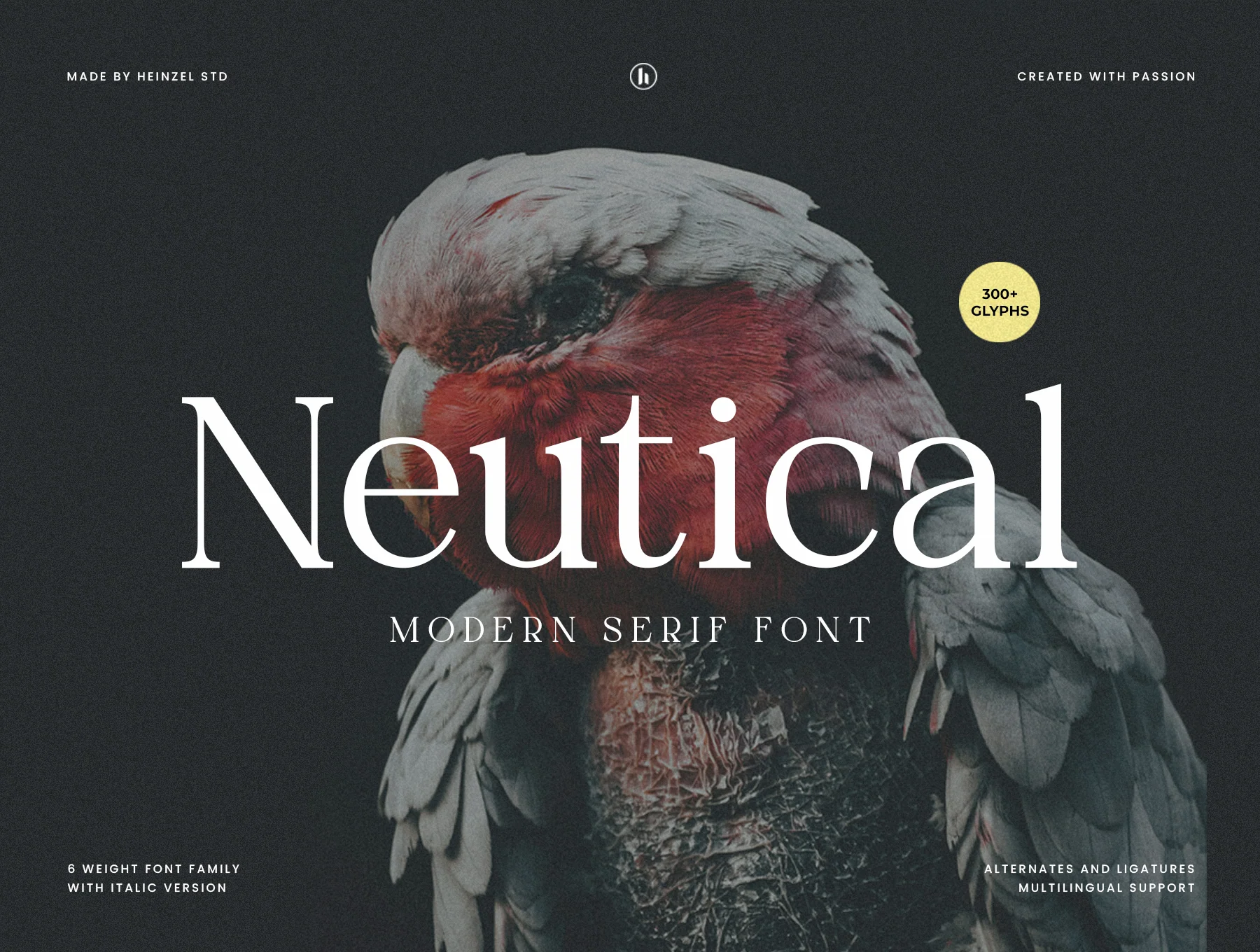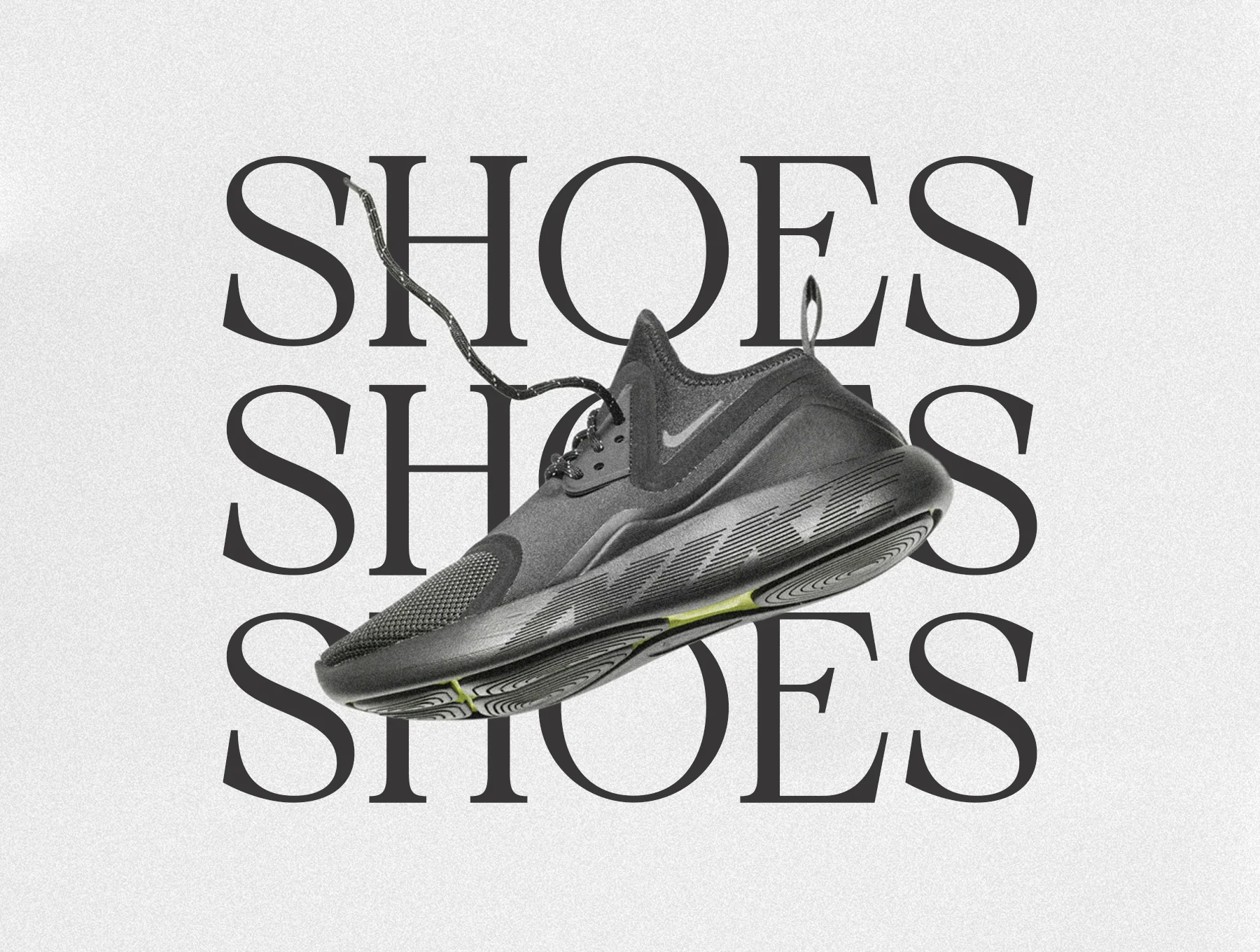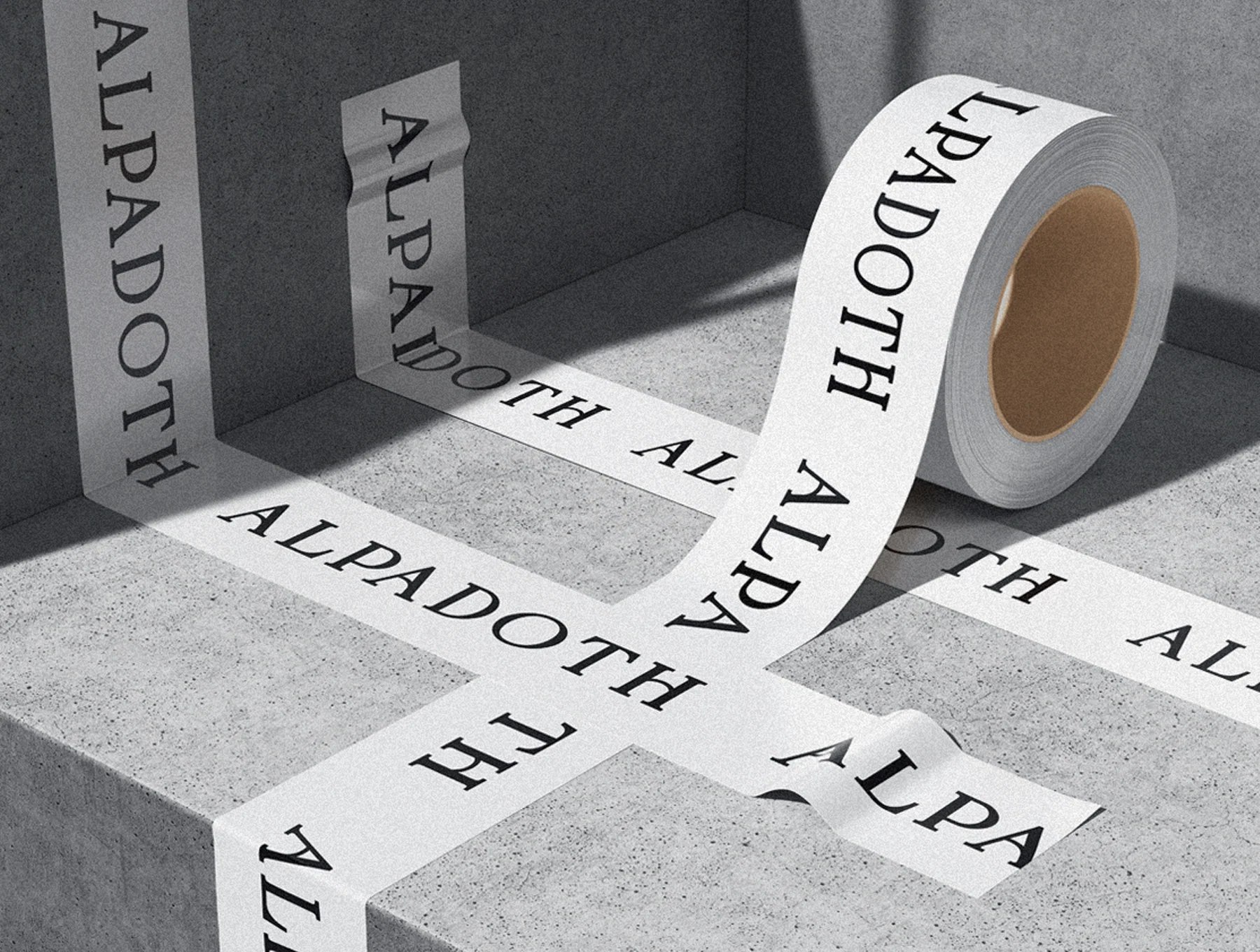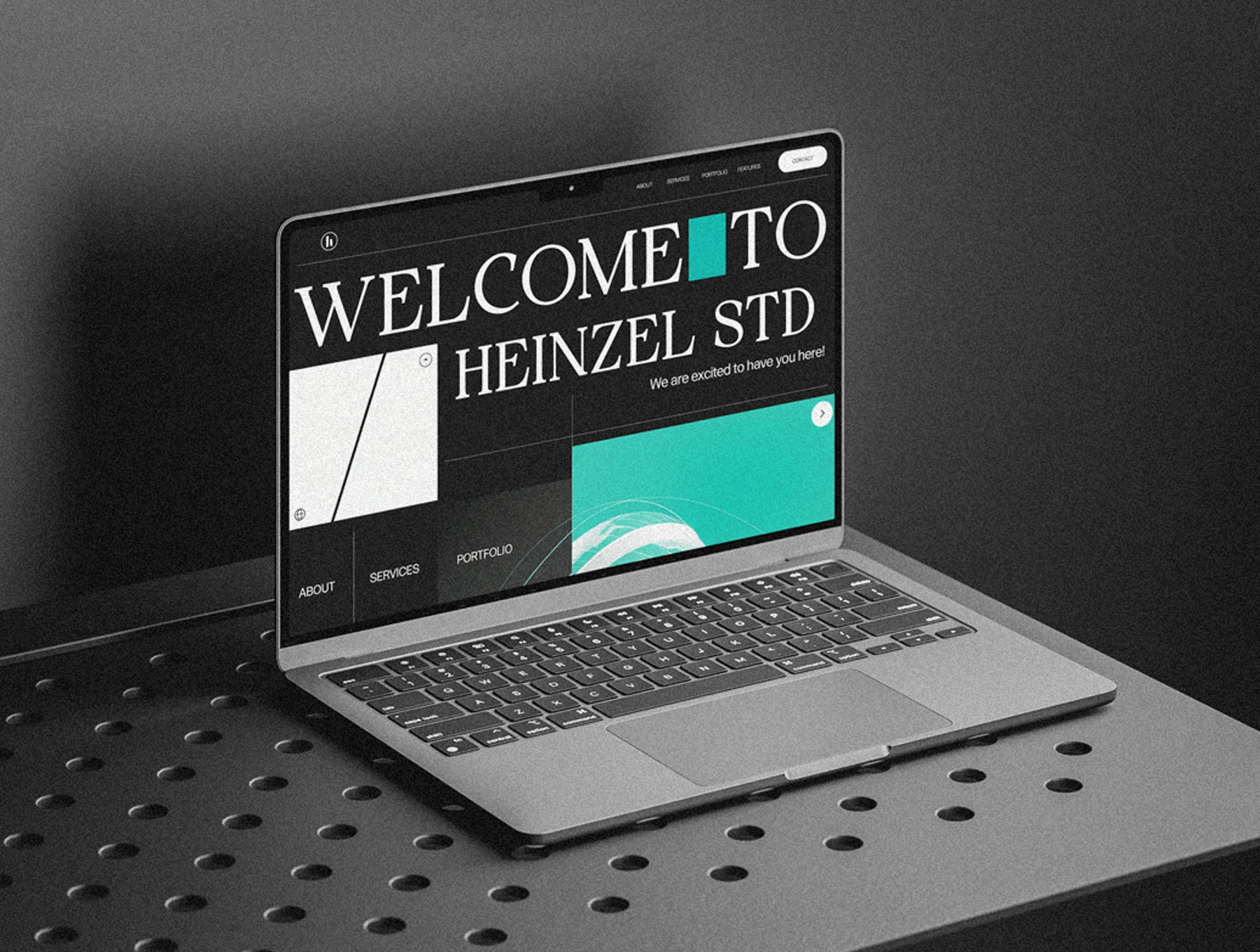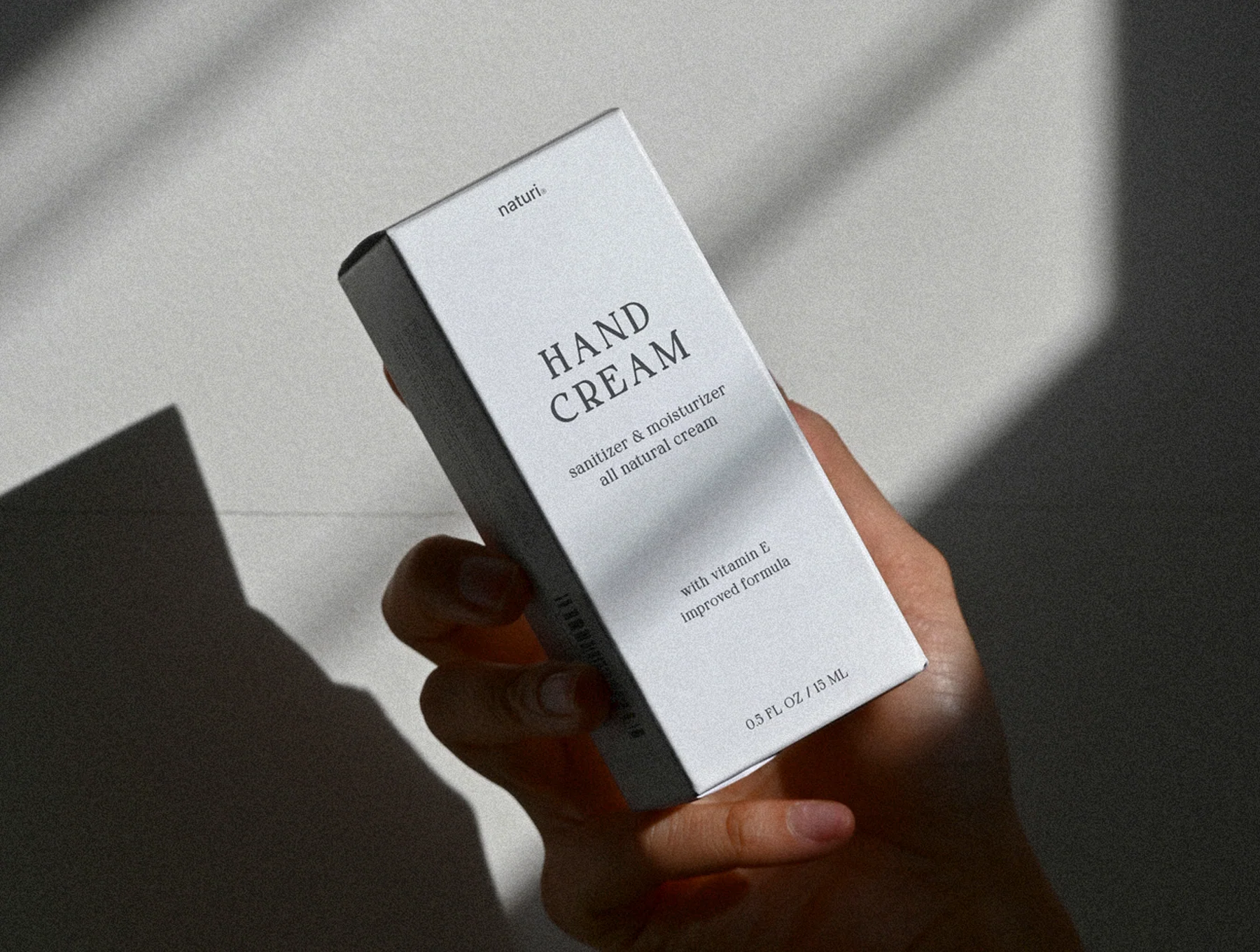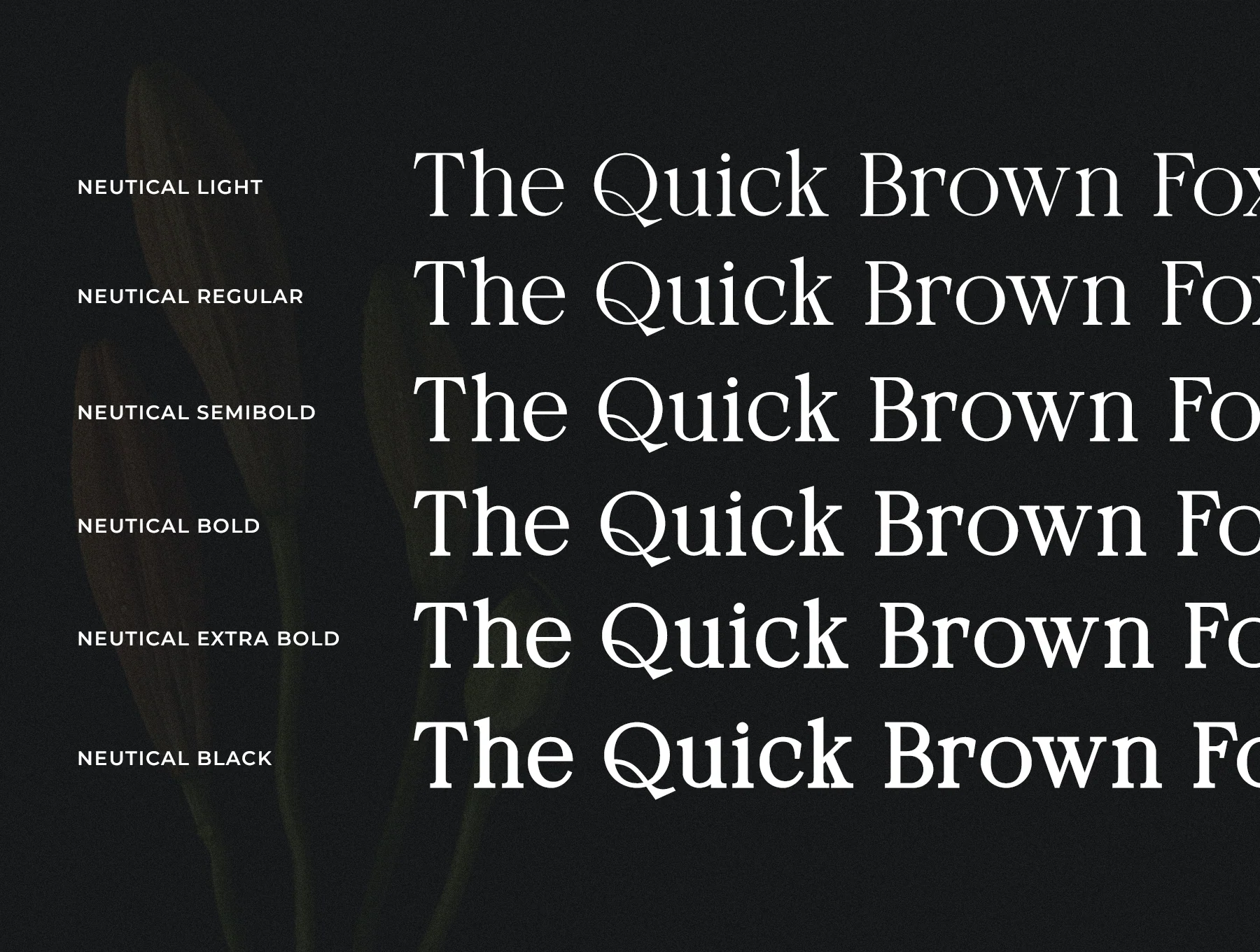
Neutical - 6 Weight Font Family
Neutical Font Family with 6 Weights
Font family in 6 weights
Includes italic style
Supports ligature glyphs
Alternate character options
Neutical is a contemporary serif typeface that pairs graceful character with a fresh look. Ideal for memorable logos, striking titles, refined branding, wedding invites, stationery, and social posts, it brings polished charm to creative work. PUA support offers easy use of distinctive glyphs, giving designers added flexibility for standout projects.